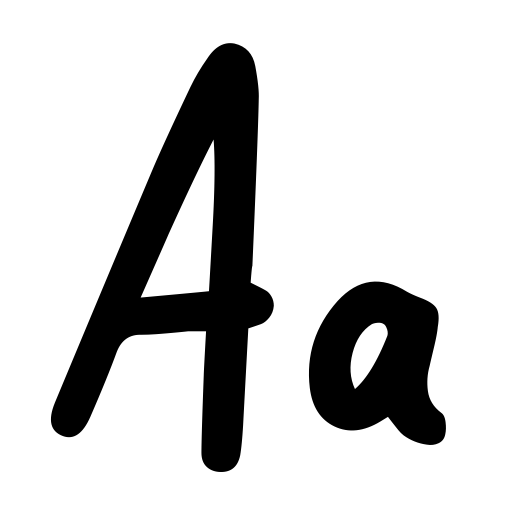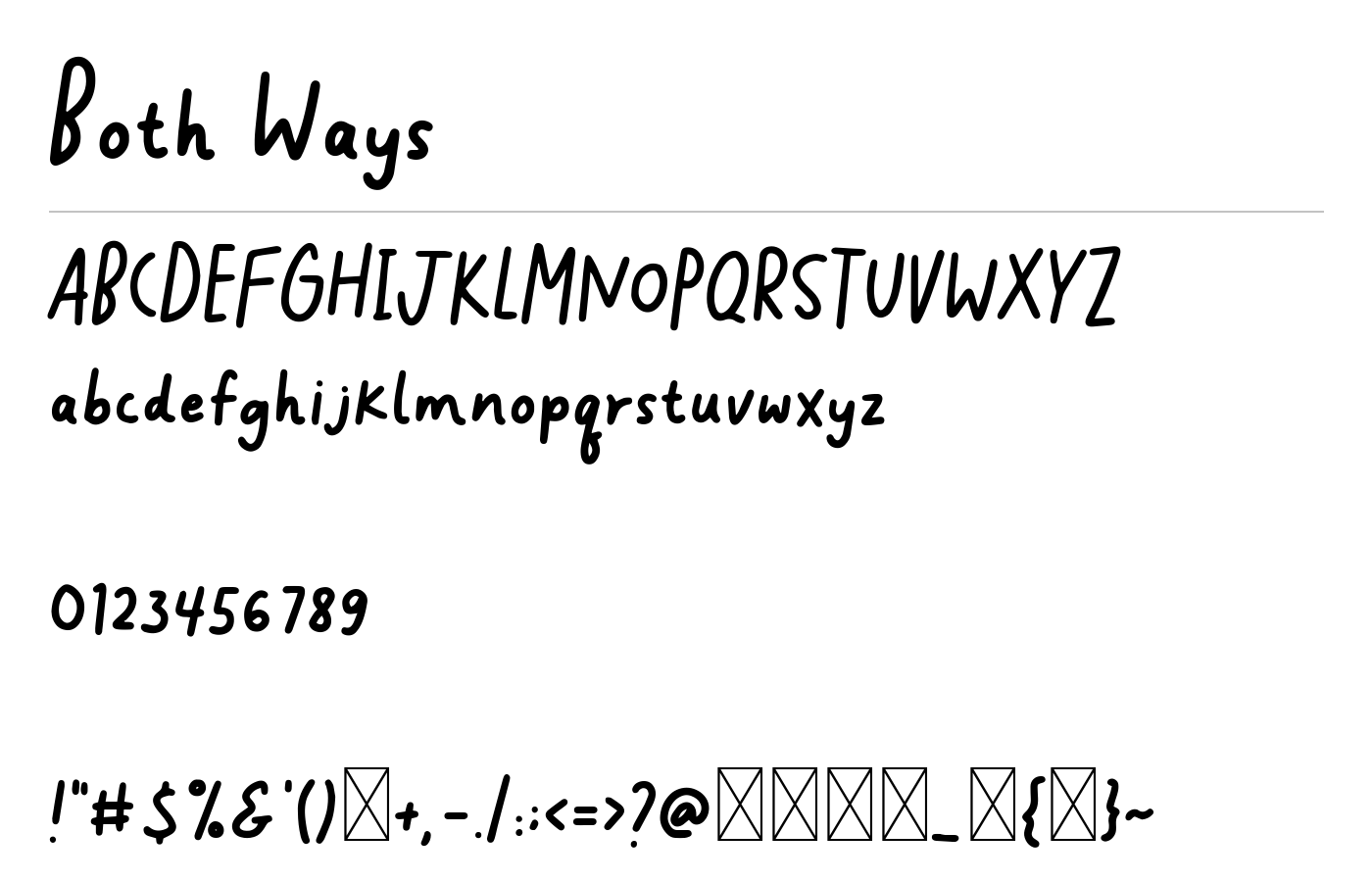
Both Ways is a playful and casual handwritten sans serif font, featuring a light to regular weight with slightly condensed, tall letterforms and a lively, organic stroke style. Its quirky shapes and uneven baseline give it a friendly, approachable personality, making it ideal for informal branding, creative projects, and fun editorial use where a warm, personal touch is desired. This font works well in headlines and packaging that aim to communicate creativity and friendliness without sacrificing readability.
Both Ways Font